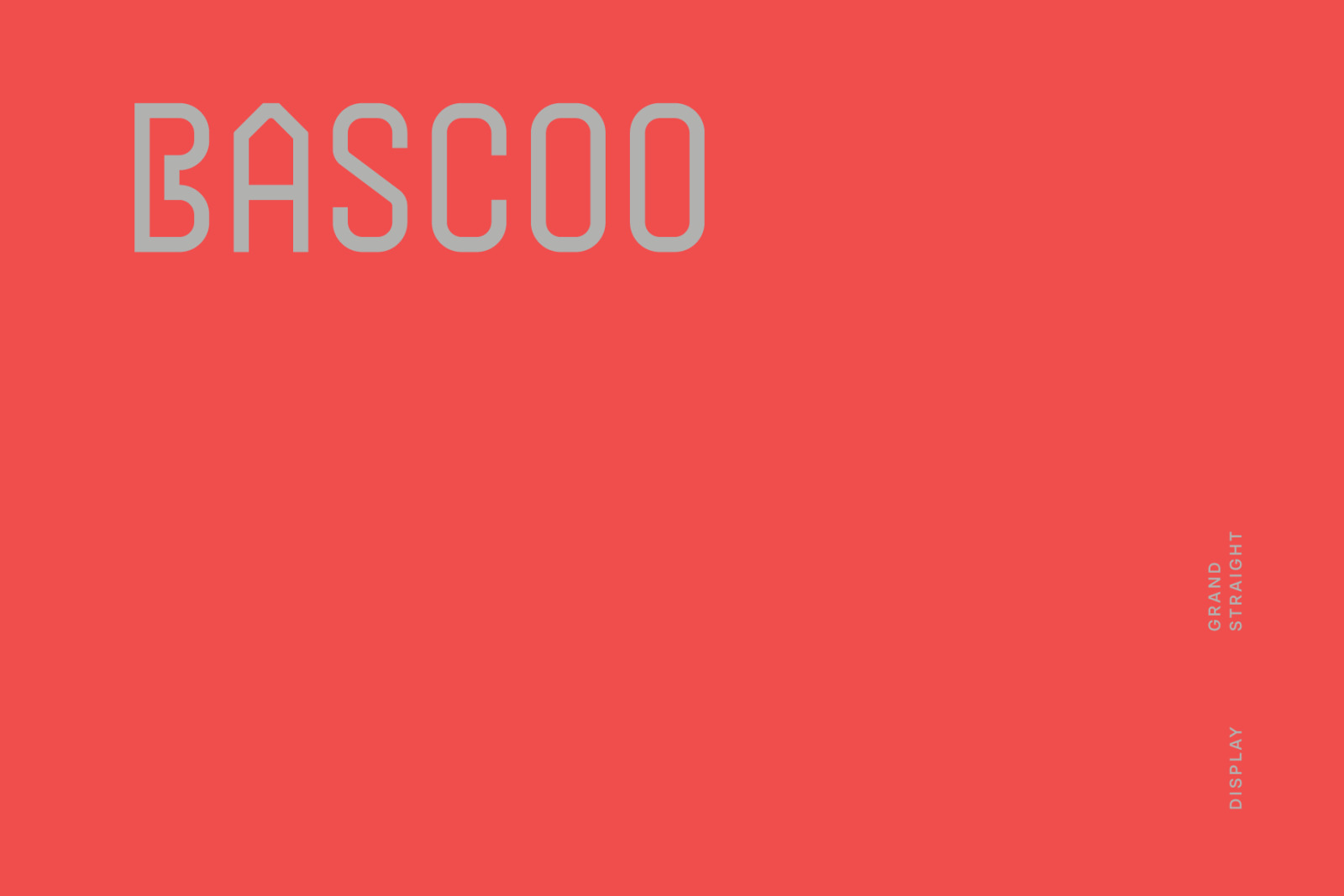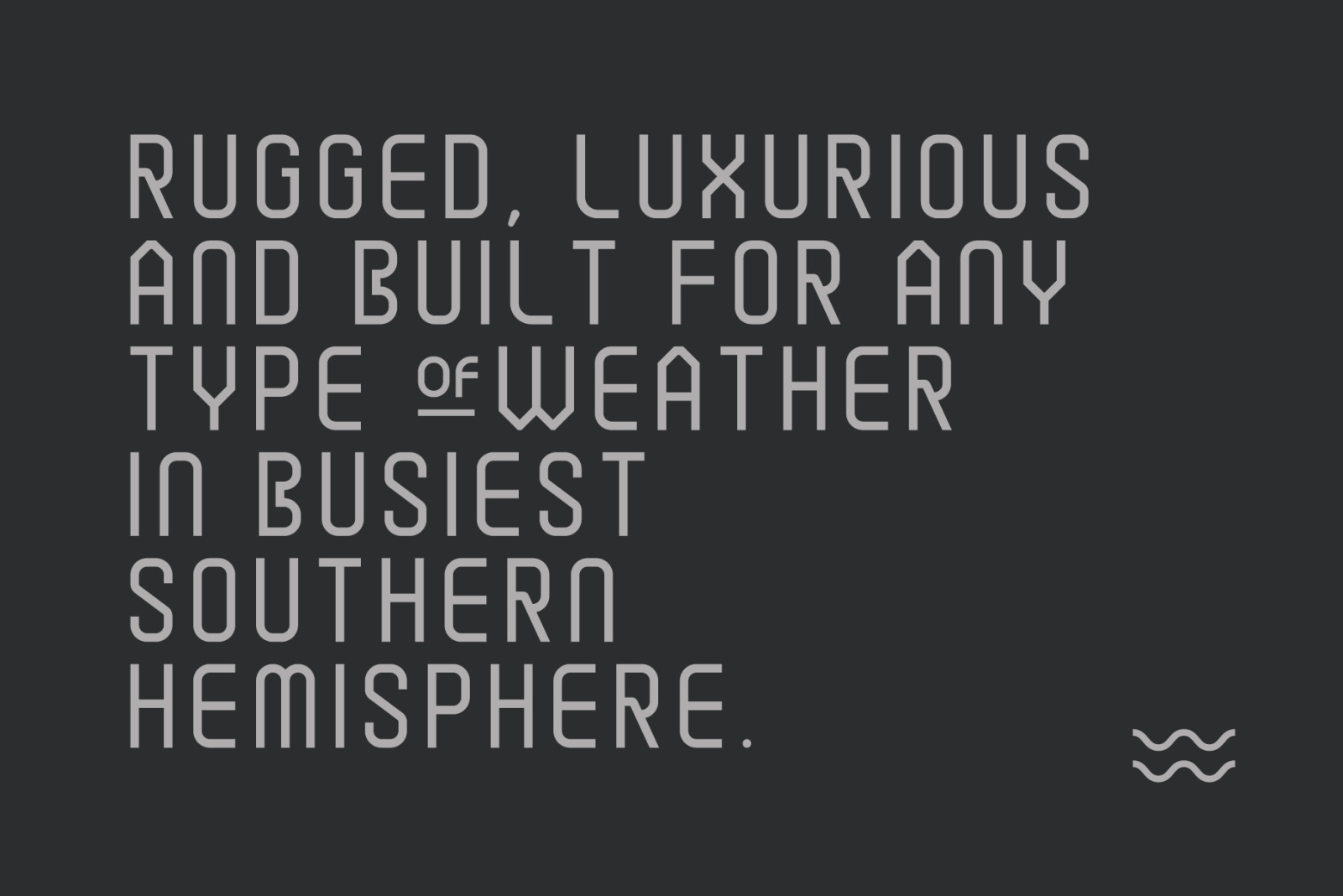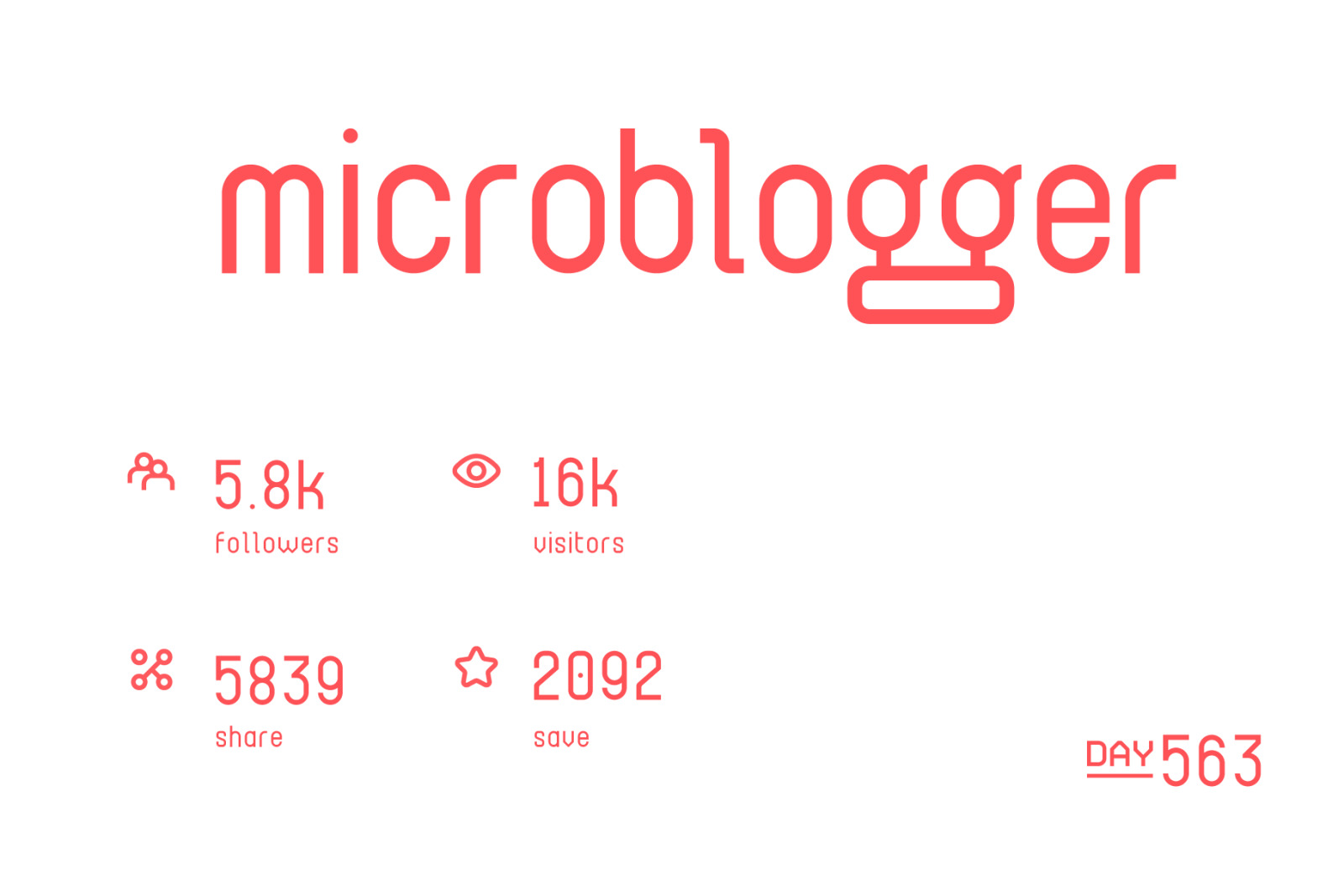
Bascoo Font
Bascoo is a grand straighten linear sans apt for headline, editorial, branding, packaging, printed materials and typographic applications. 150+ glyphs with ligatures and fractions provided in opentype .otf and .woff format.